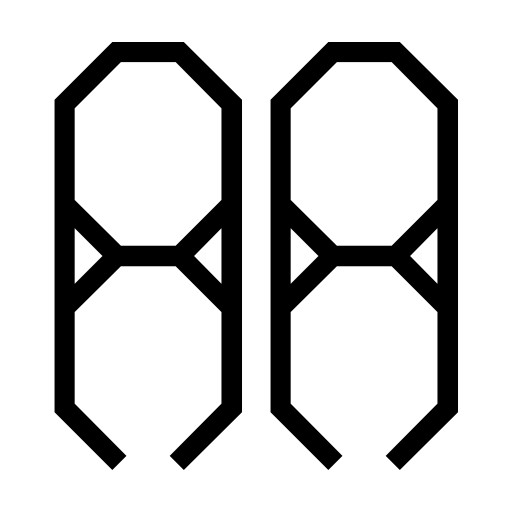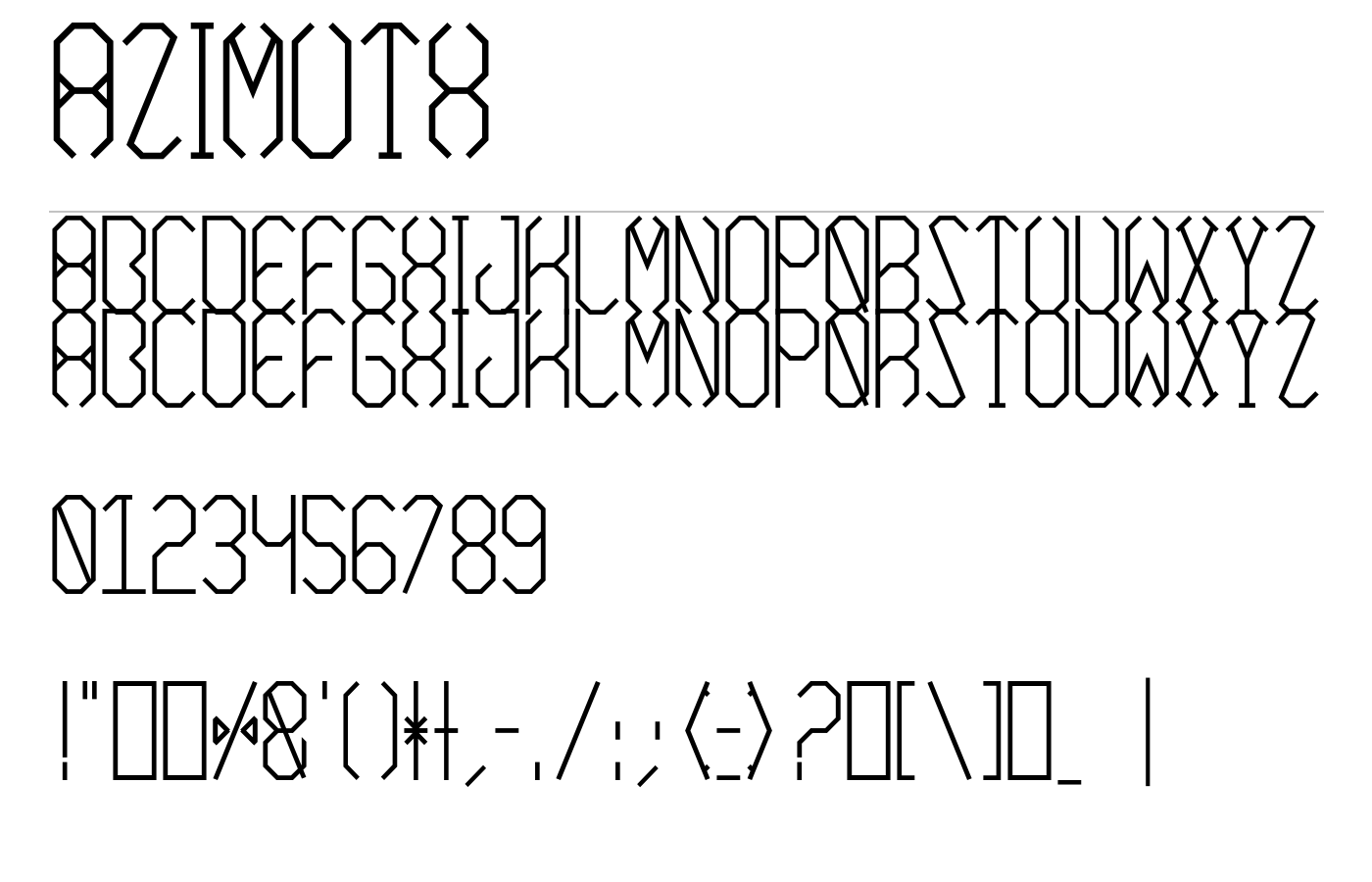
Azimuth is a narrow, geometric sans serif font with a futuristic and technical feel, characterized by its thin, consistent stroke weight and sharp angles. Its unique, octagonal letterforms create a distinctive, modern appearance ideal for sci-fi, technology, or avant-garde design projects. This font works best in logos, headlines, and display use where a striking, innovative look is desired.
Azimuth Font
About Azimuth Font